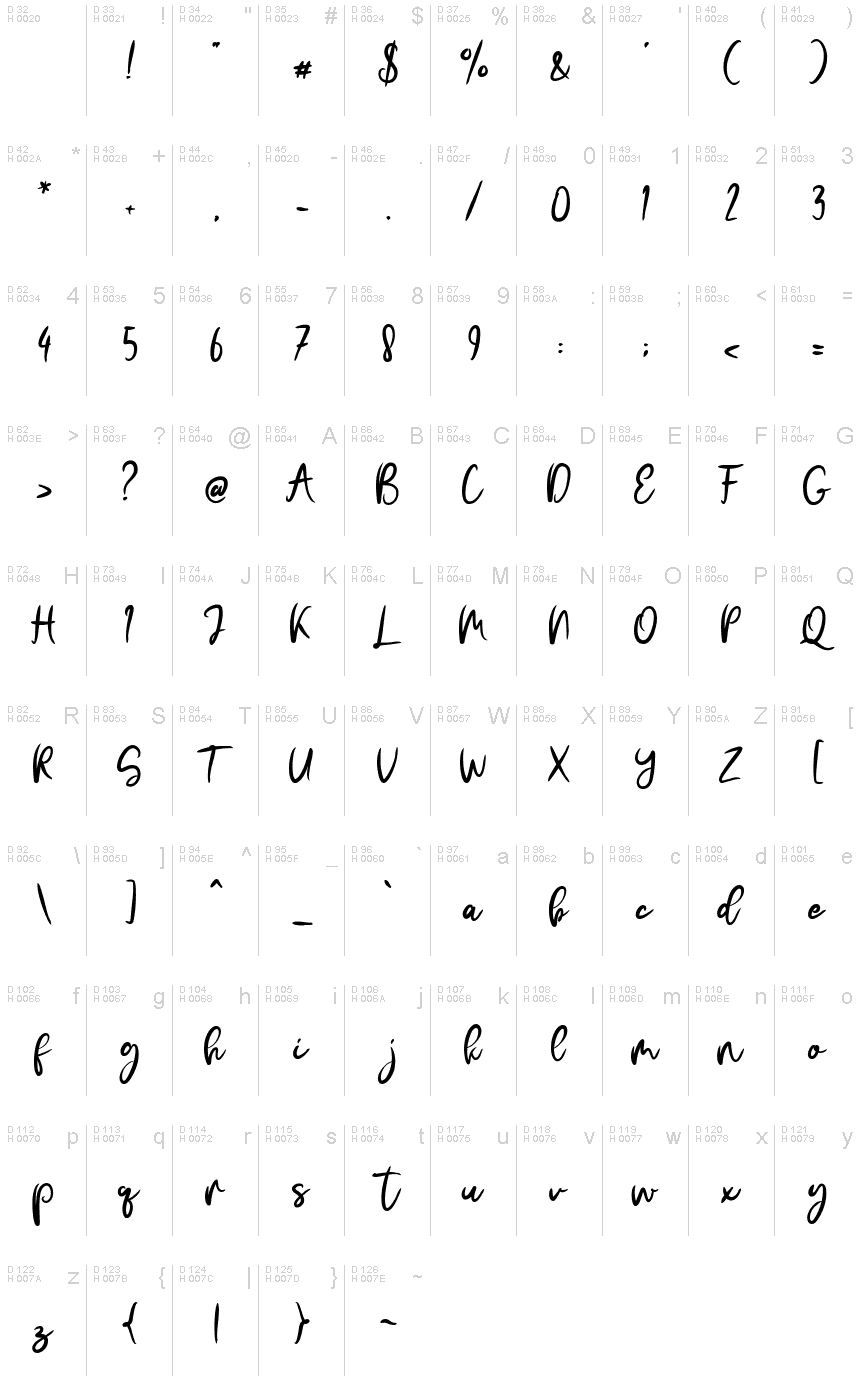
Christmas Booster
Get ready to add some festive flair to your projects with Christmas Booster, the latest font creation from Creaditive Design. This cheerful handwritten typeface brings a playful touch to any design, making it perfect for holiday cards, invitations, and social media graphics. With its semi-light weight and unique style, Christmas Booster will make your text stand out while still maintaining readability. Whether you're working on a corporate campaign or a personal project, this font is sure to spread joy and merriment throughout your designs. So why not give your message an extra boost this holiday season with Christmas Booster?